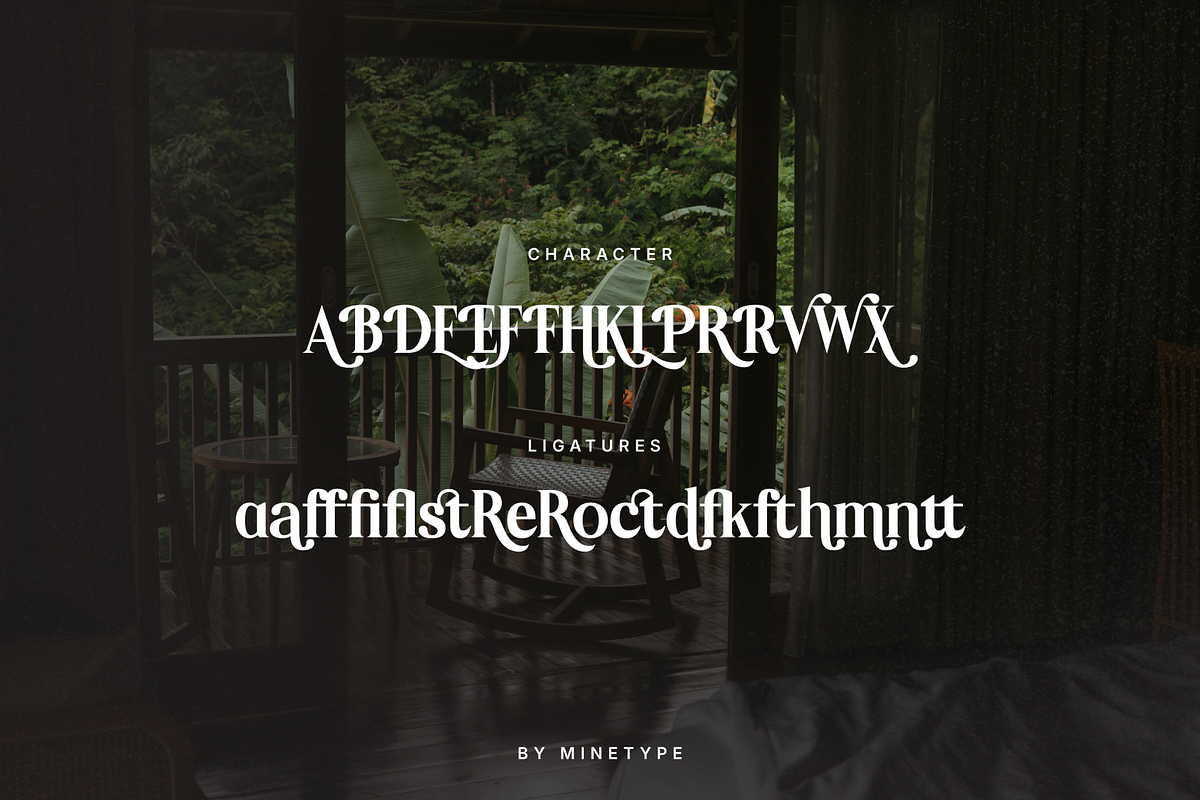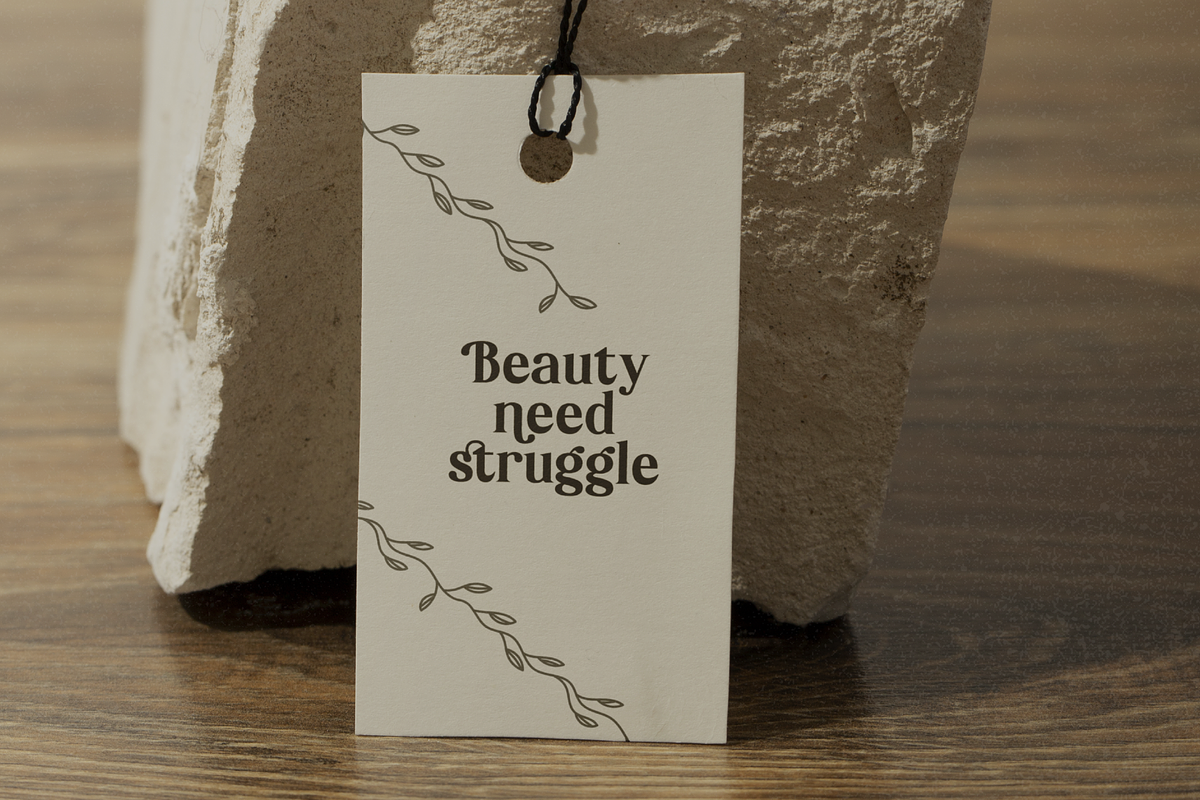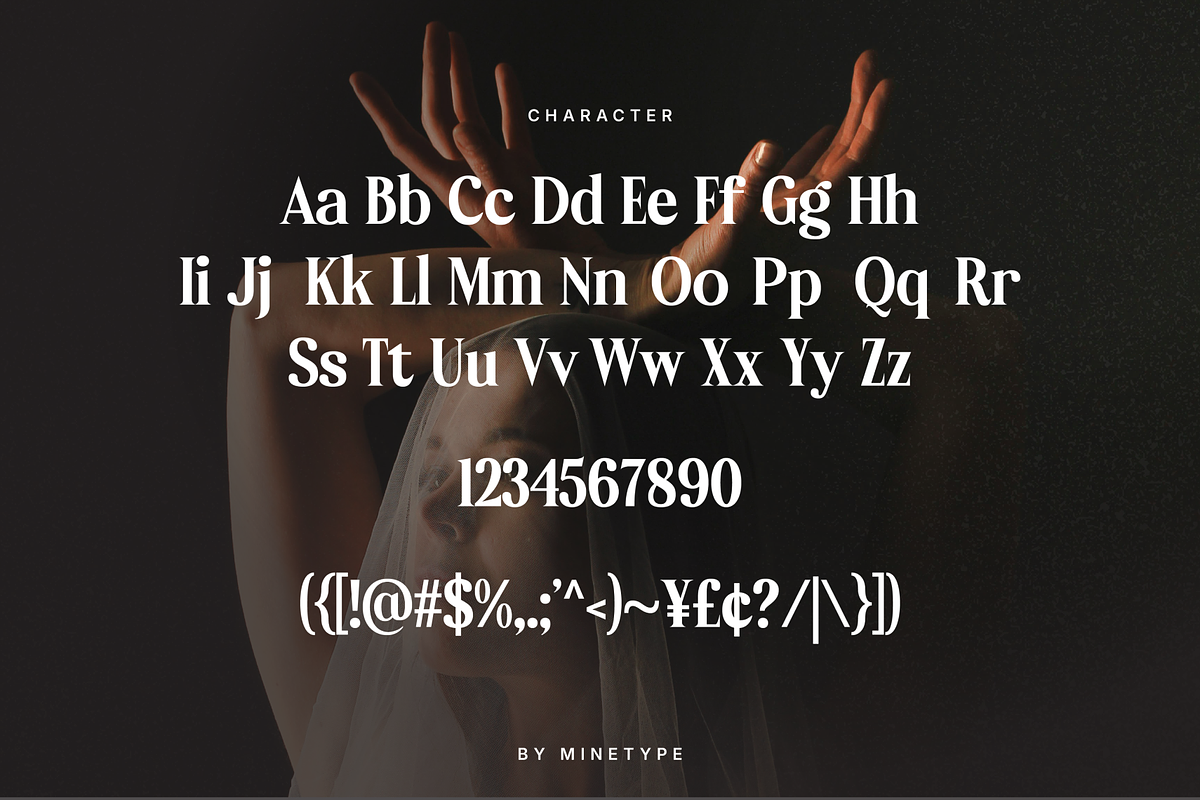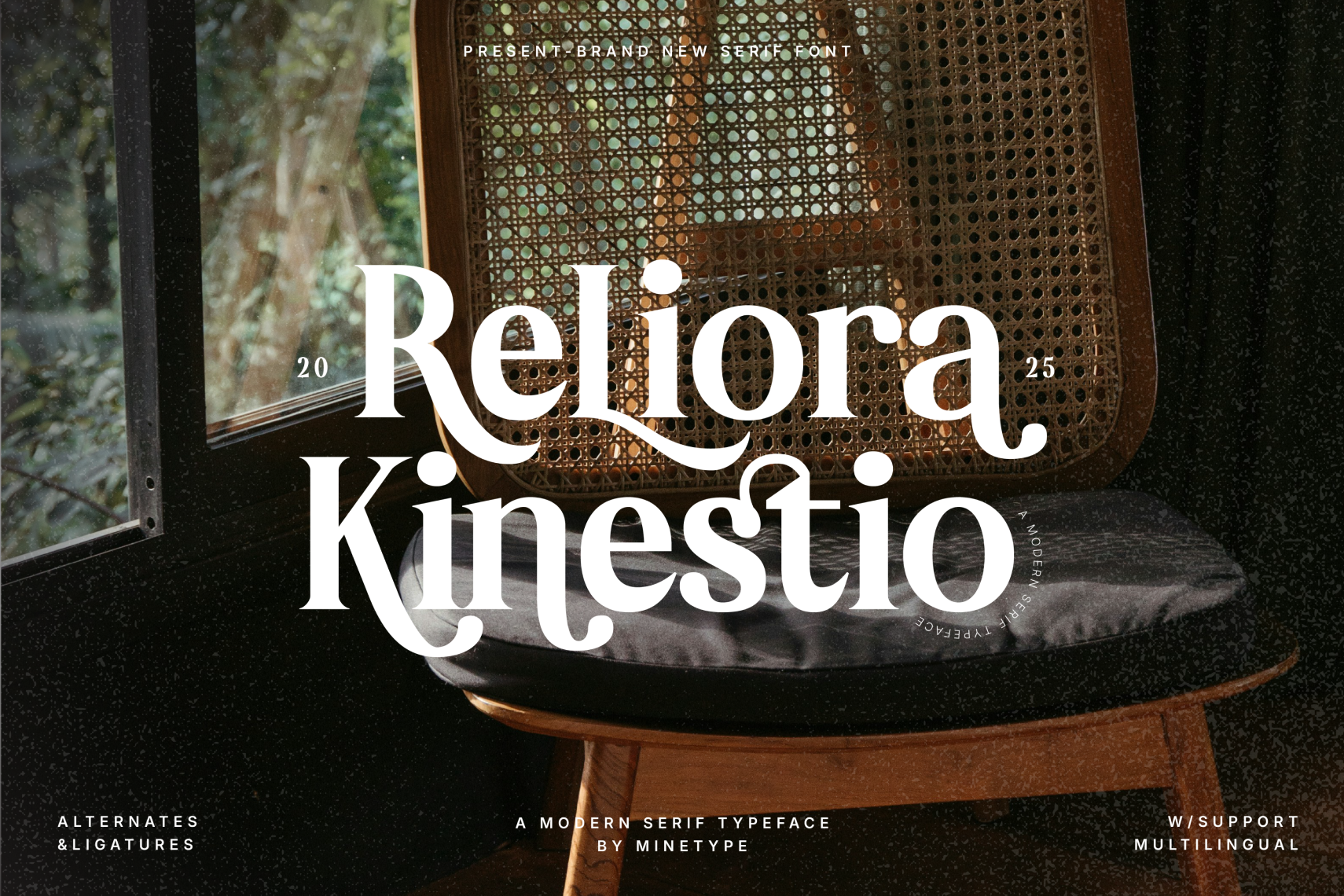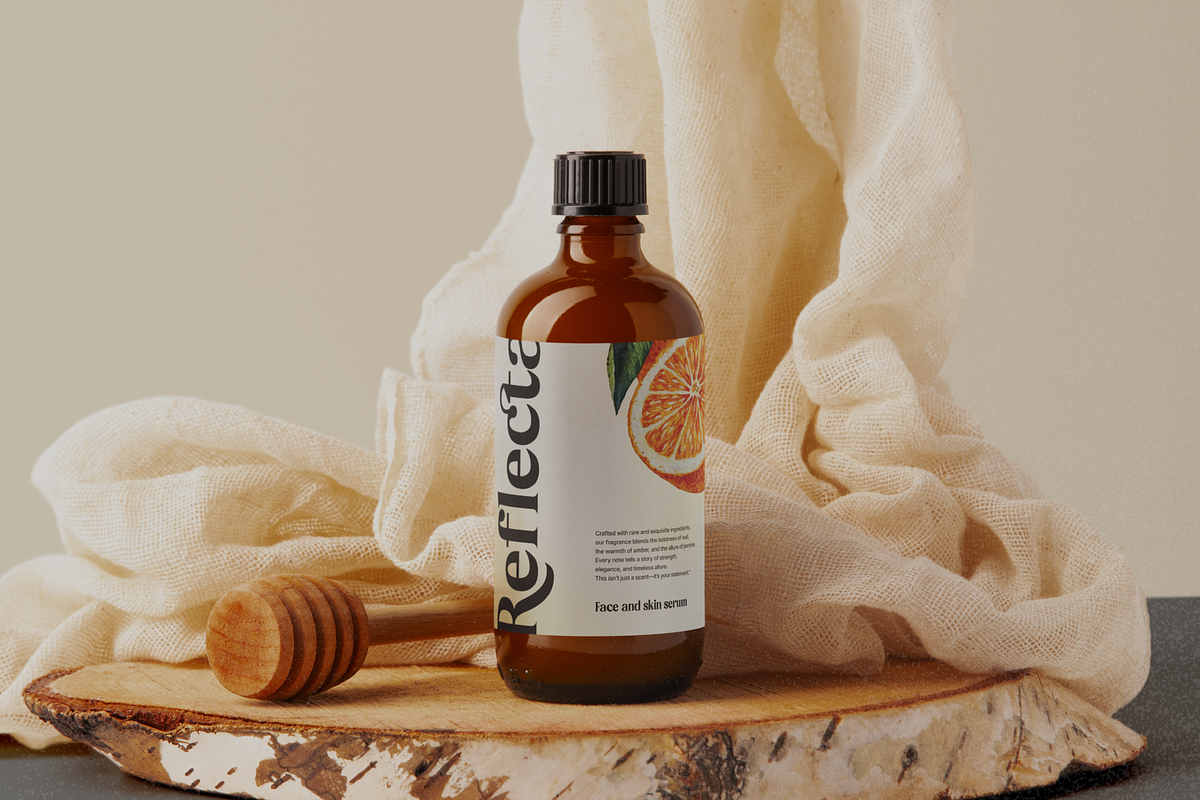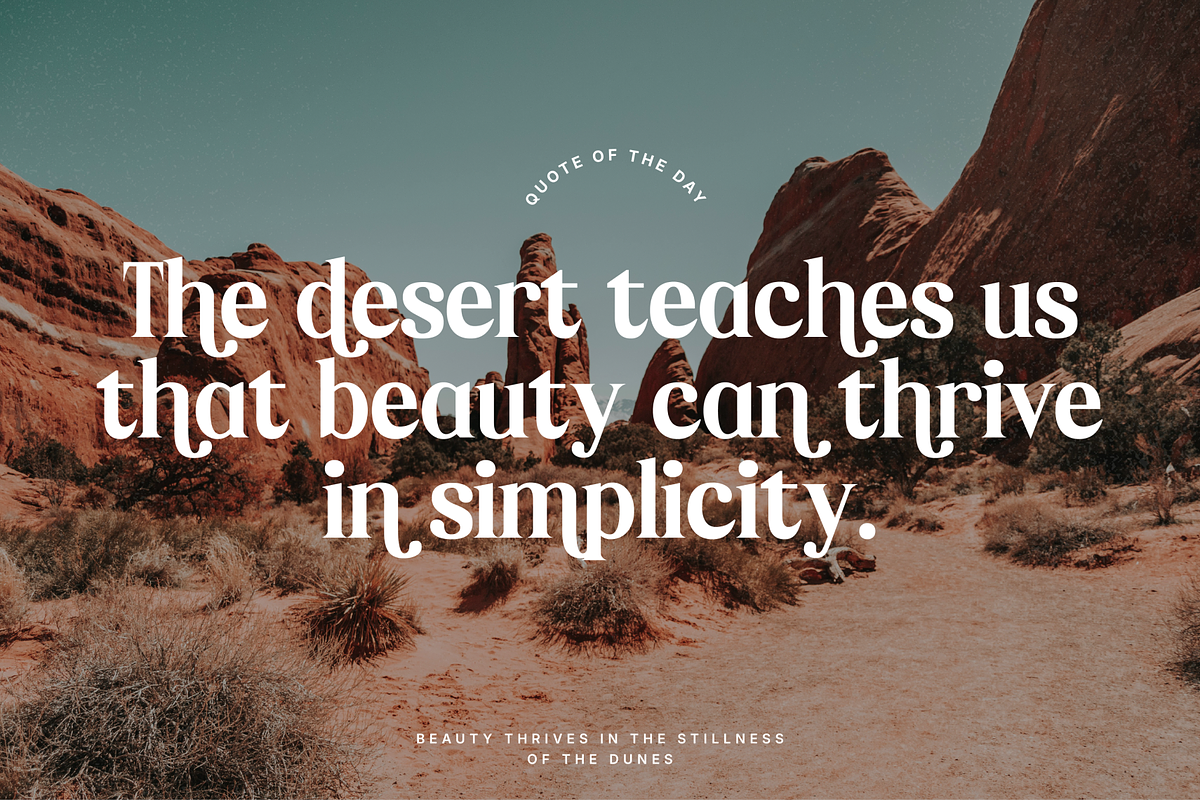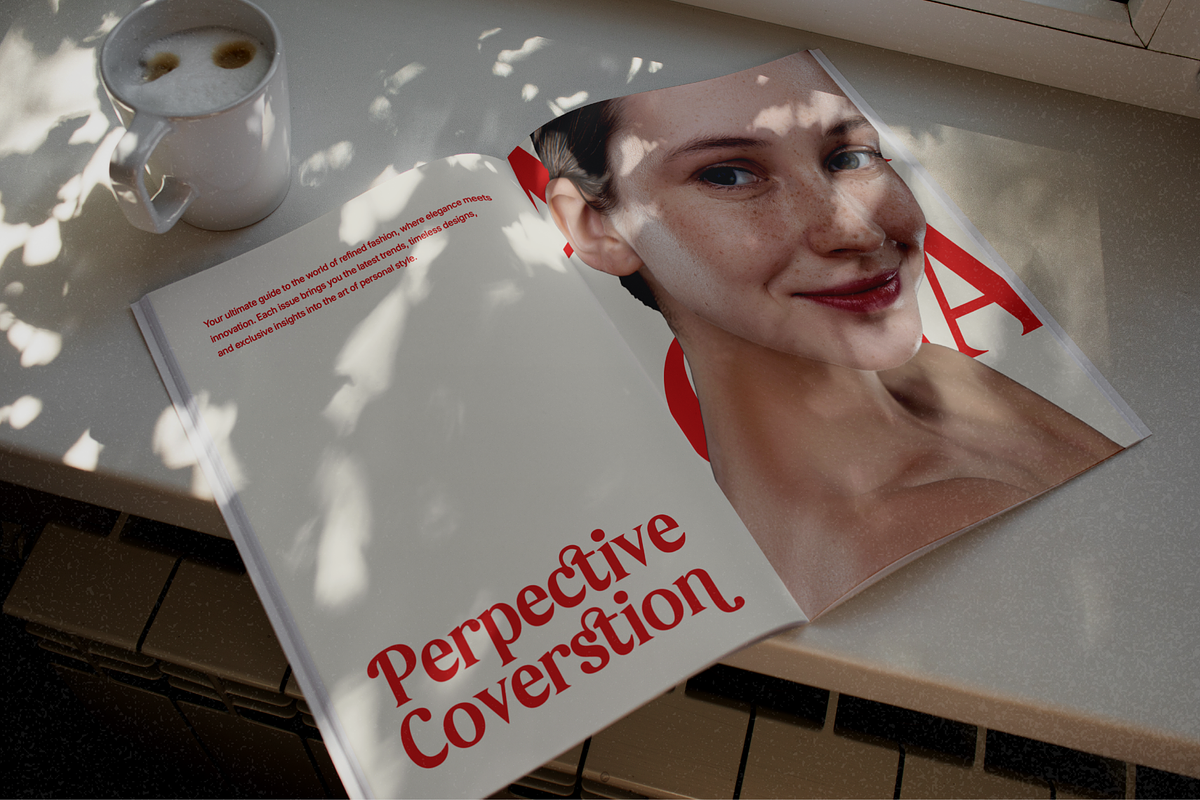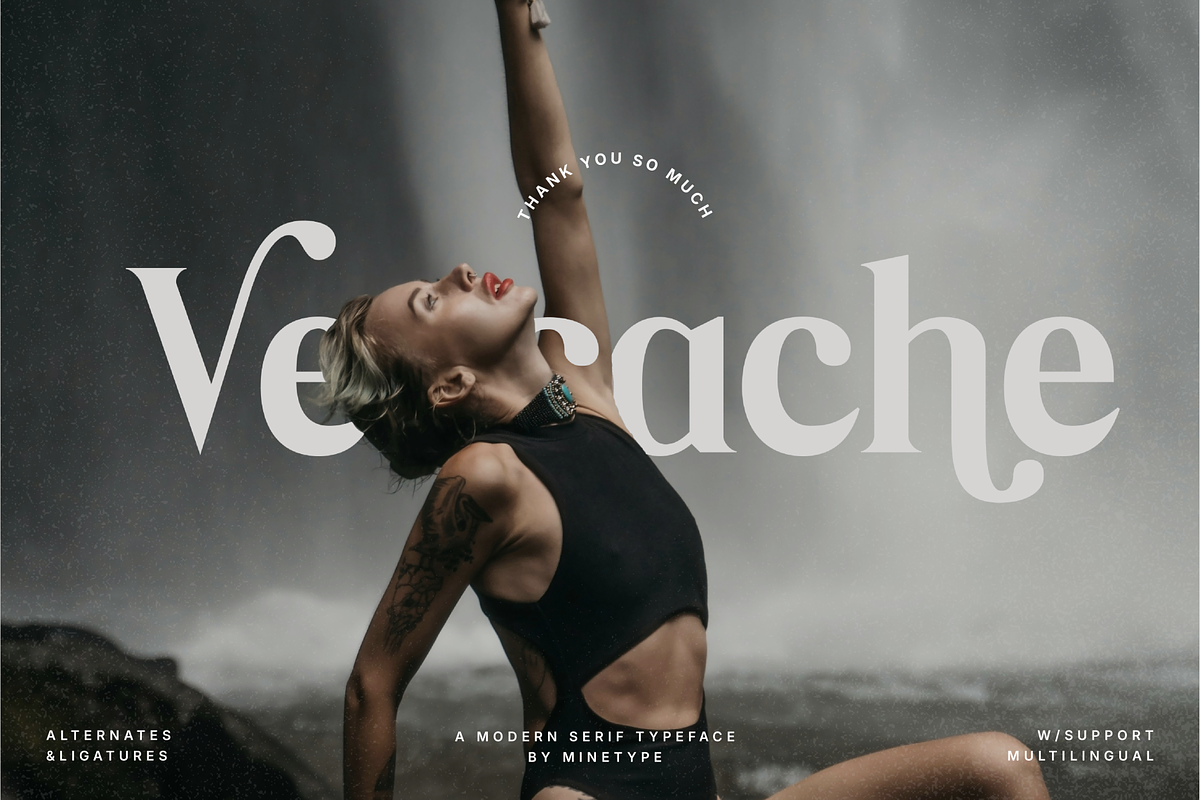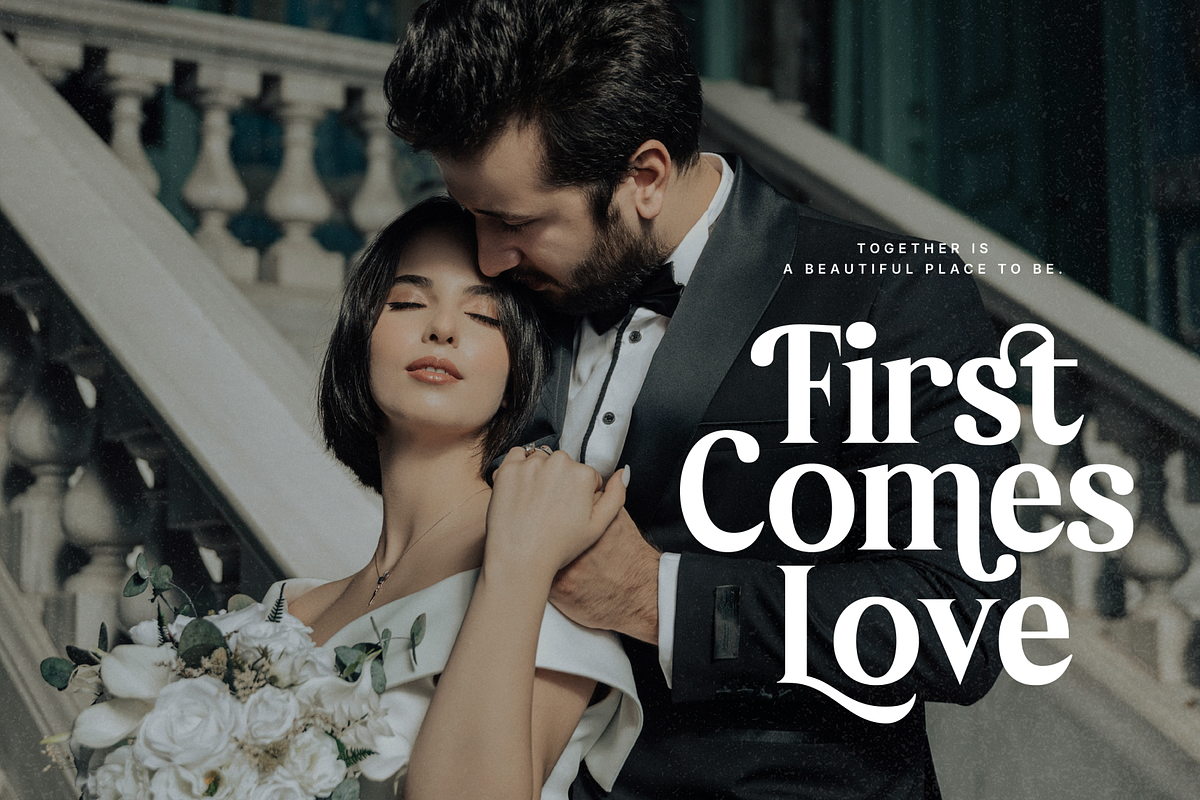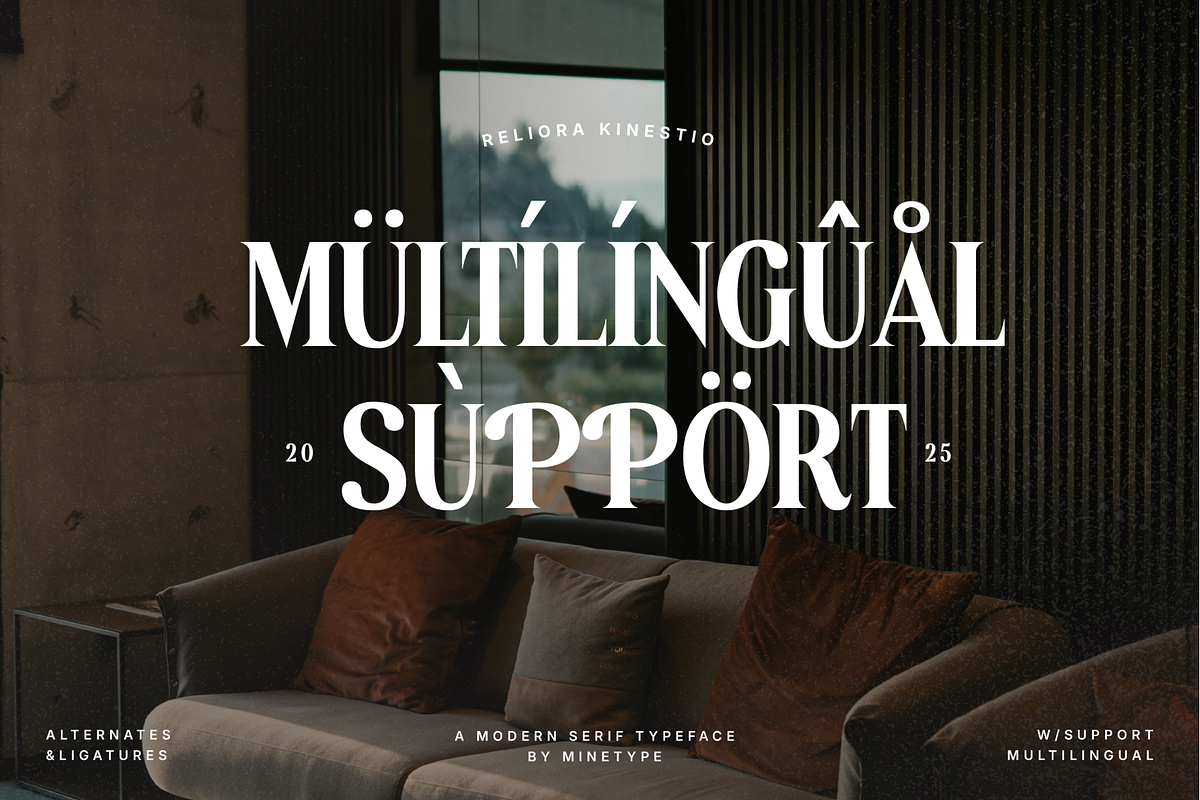
Reliora Kinestio Retro Font
Introducing Reliora Kinestio - A Stylish Retro Font
Reliora Kinestio Kind Avenue - A Stylish Retro Font. This font can look more retro (conservative) serif, which is perfect for texts. So same he can be more expressive, playing and more modern with alternative substitutes and ligatures. Try to play with them and you will get the uniqueness in your project